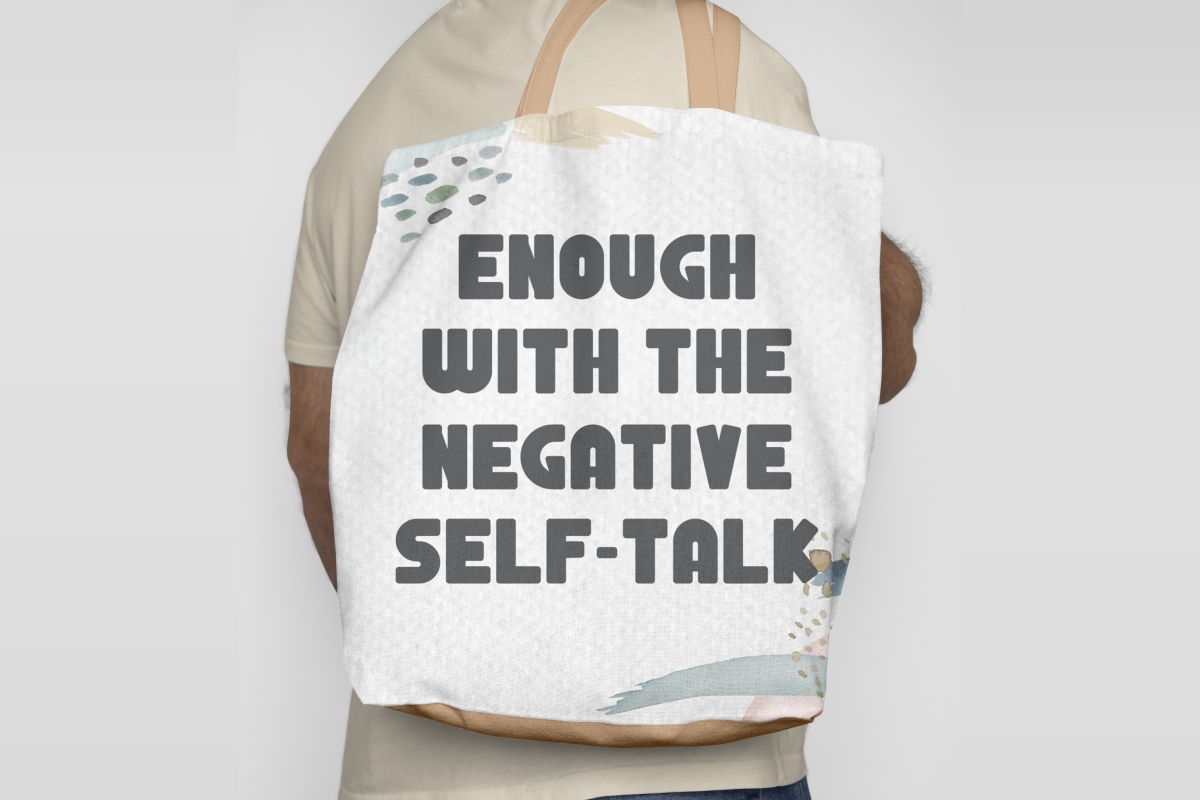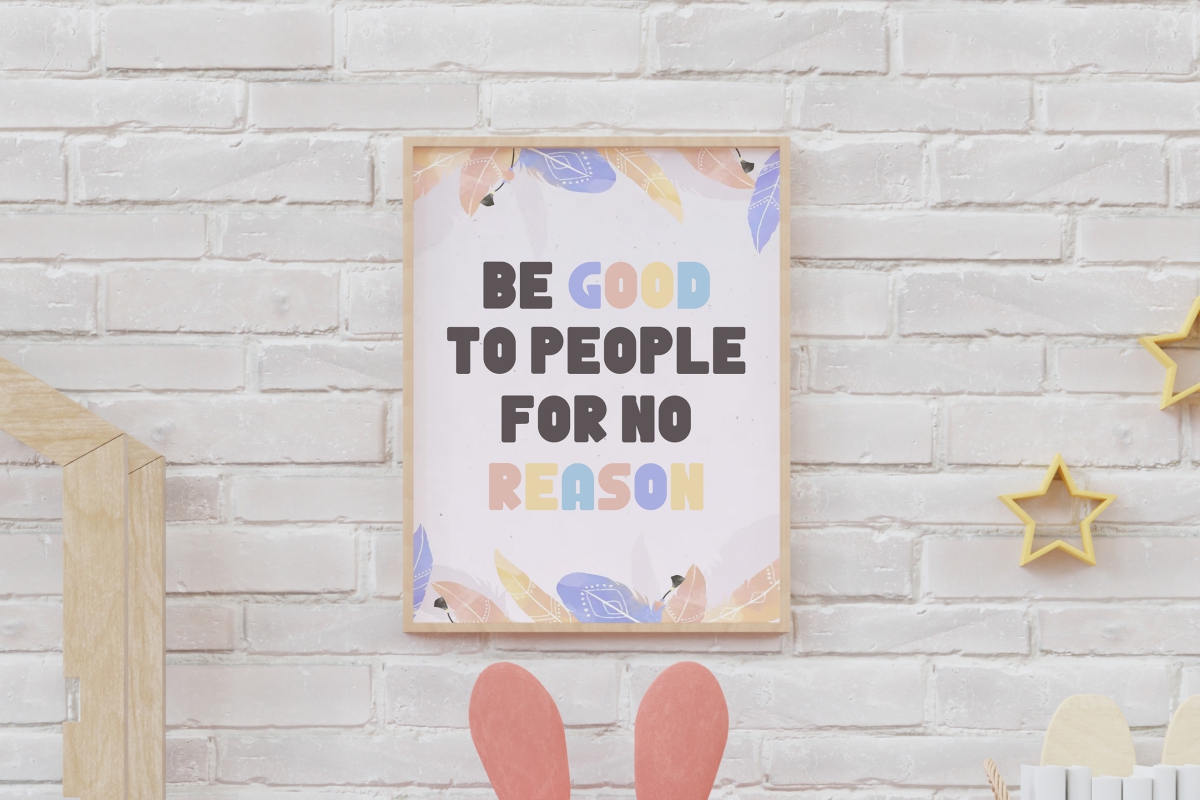
Fullday Display Font is a cute bold display font with cartoon style. This font is packed with three different styles, Regular, Semi Bold, and Bold, which will work very well with other types of fonts. Use this font to enhance any design you create, such as brochure, contents, cover, invitation, label, poster, product packaging, quote, screen printing and special design, signage, sticker, website, etc.